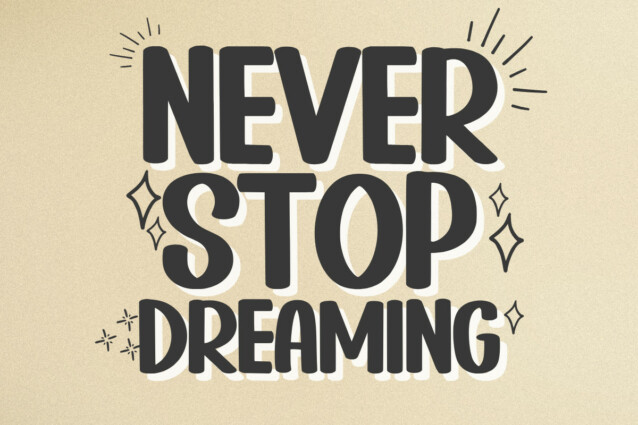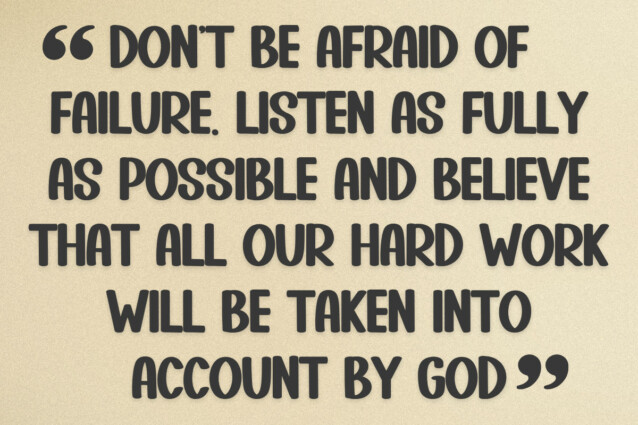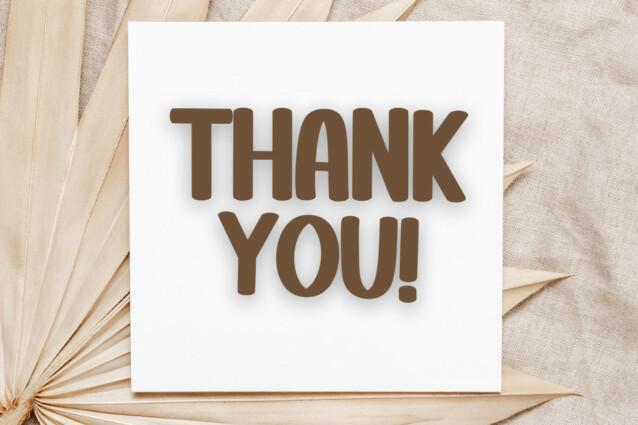
Cram Bold Font
Cram Bold Font is a Font with a modern style based on bold and minimalist shapes touched in a modern and elegant style. This font is perfect for various creative needs such as printing, books, titles, headlines, photography, decoration, branding, logos, and more.